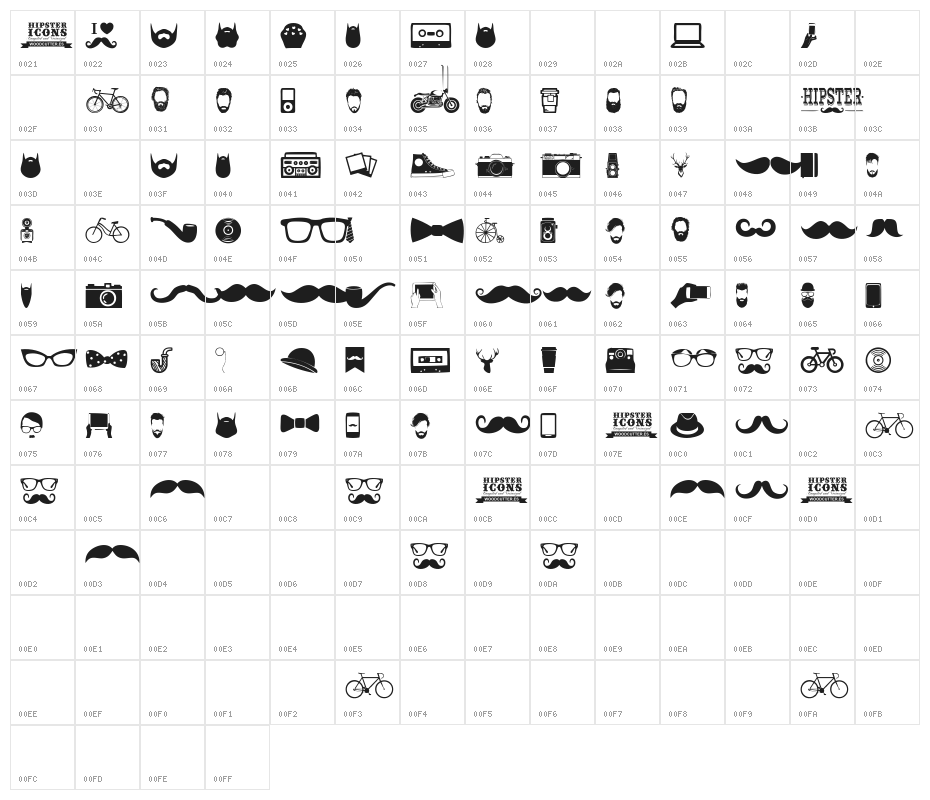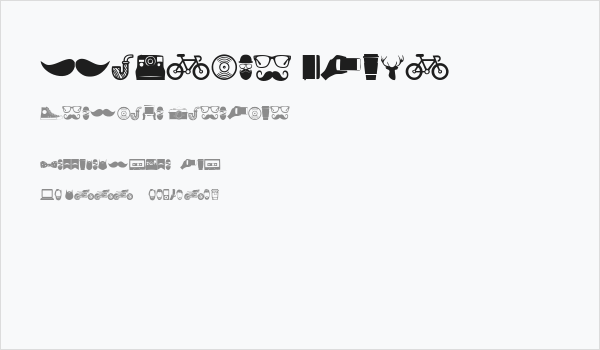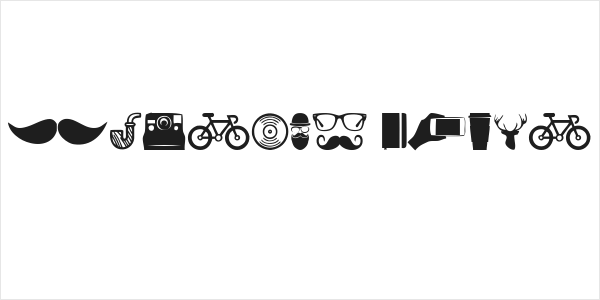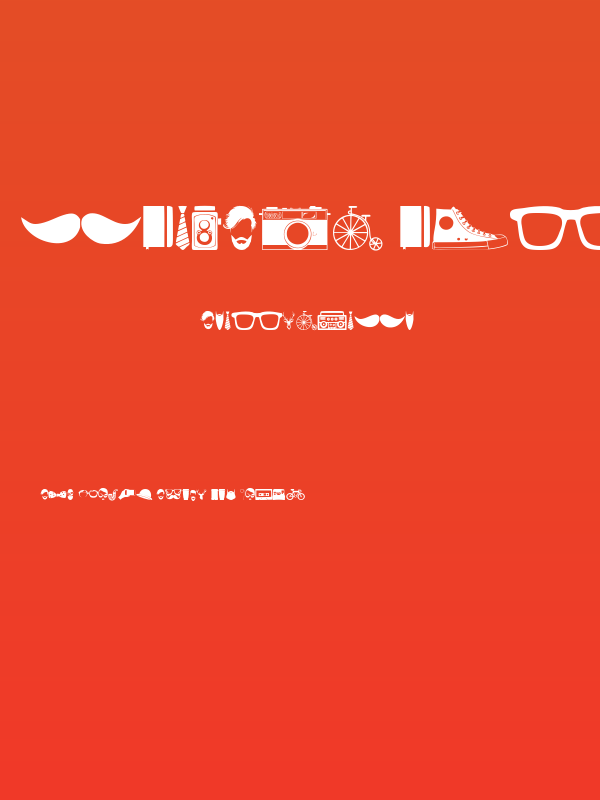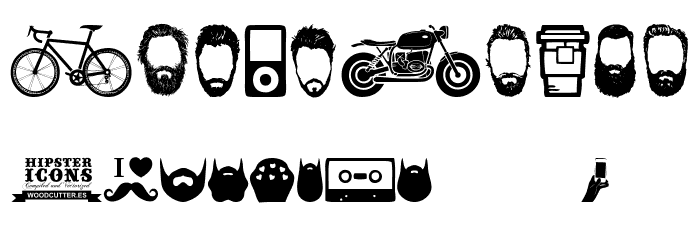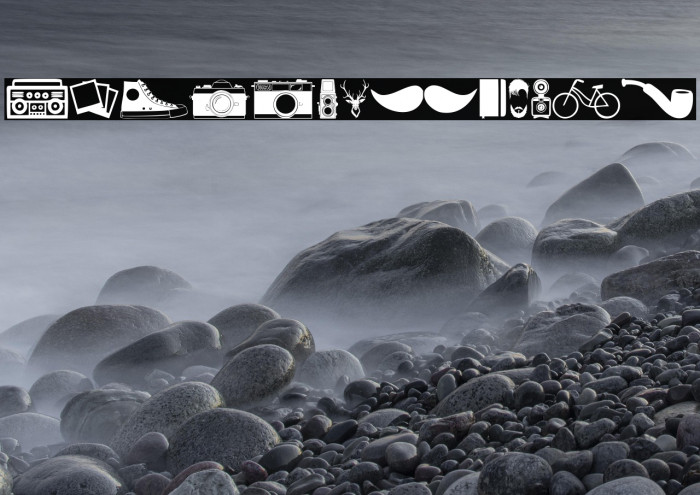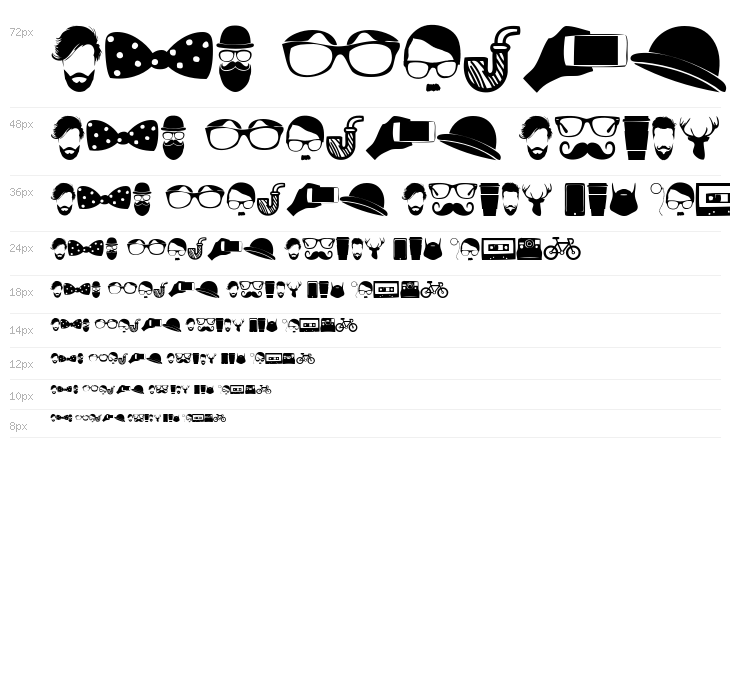
Hipster Icons Font
Hipster Icons Description
A decorative icon set featuring hipster-themed illustrations such as mustaches, beards, glasses, cameras, bicycles, bow ties, vinyl records, and pipes. The icons are bold, black silhouettes with playful and quirky details, suitable for creative and modern design projects.
| Overall Style | Decorative, Modern, Playful |
| Use Case | Logos, Posters, Social Media, Merchandise |
| Proposed Projects | Branding for cafes or barbershops, event posters, social media graphics, merchandise, lifestyle blogs. |